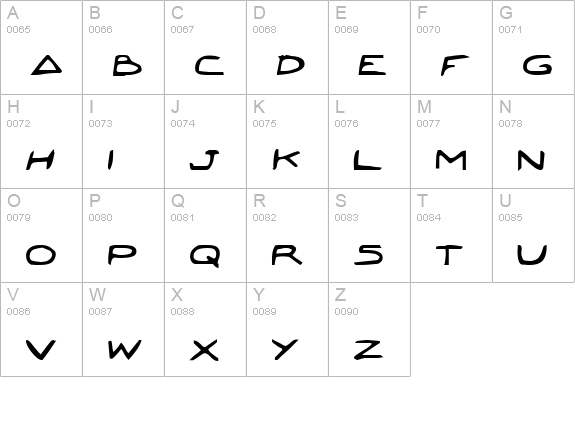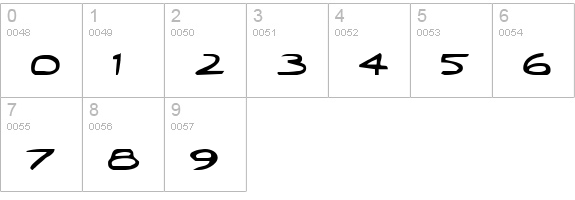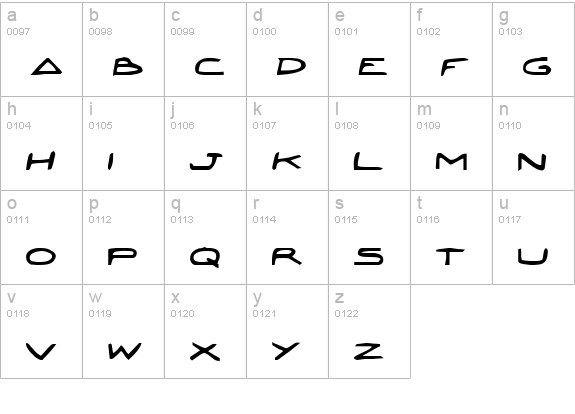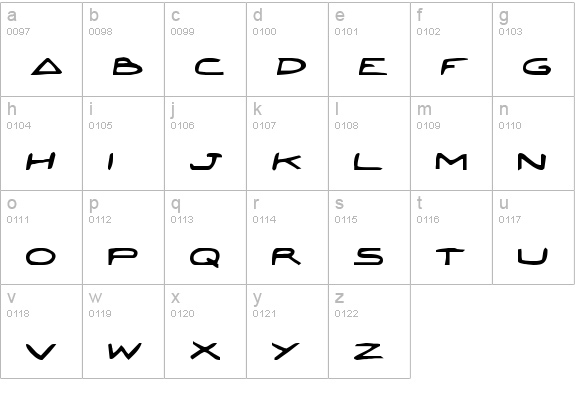
Jetta Bold is a strong, high-contrast variant in the Jetta typeface family \xE2\x80\x94 well suited to headlines, attention-grabbing titles, and strong calls-to-action.
Introducing Jetta Bold font - a striking and modern typeface that commands attention with its bold and powerful presence. This versatile font is perfect for a wide range of design projects, from posters and headlines to logos and branding materials. With its clean lines and strong, impactful characters, Jetta Bold exudes confidence and style. What makes Jetta Bold even more appealing is that it is available for free download at FontsMarket.com. Yes, you heard that right - this eye-catching font can be yours at no cost, making it a must-have addition to any designer's toolkit. So why wait? Download Jetta Bold today and elevate your designs to new heights with this exceptional typeface.